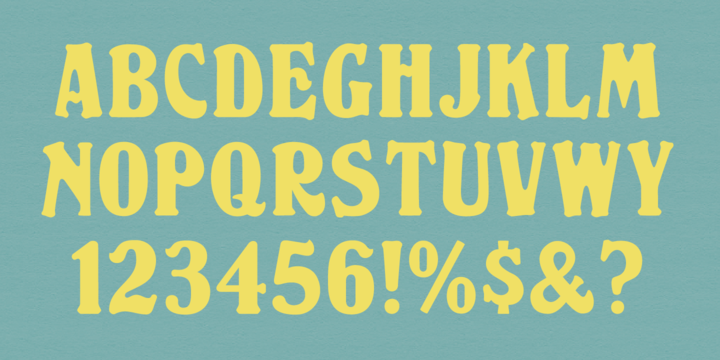
Originally designed by DeLittle of York of England, this face conveys a casual quality with contrasting strokes, rounded forms, and serifs with a brush-like quality. A lovely decorative display font.